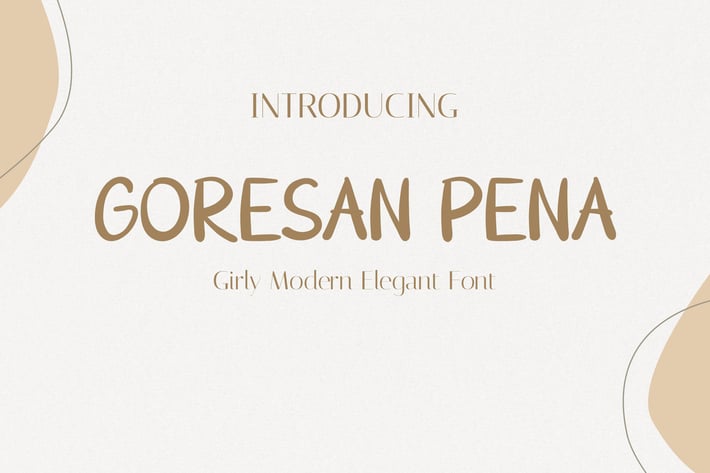
Handwriting Font - Goresan Pena
Goresan Pena is a modern, elegant handwritten font that brings a girly touch to every design. Its soft strokes and balanced spacing make it ideal for projects that need a personalized, feminine appeal. This font is perfect for beauty branding, fashion, and creative projects that aim to evoke charm and sophistication.
Market Applications:
Goresan Pena fits perfectly in branding, makeup promotions, business cards, wedding invitations, social media content, and print materials like posters and magazines. It brings a graceful touch, making it versatile for both digital and print projects